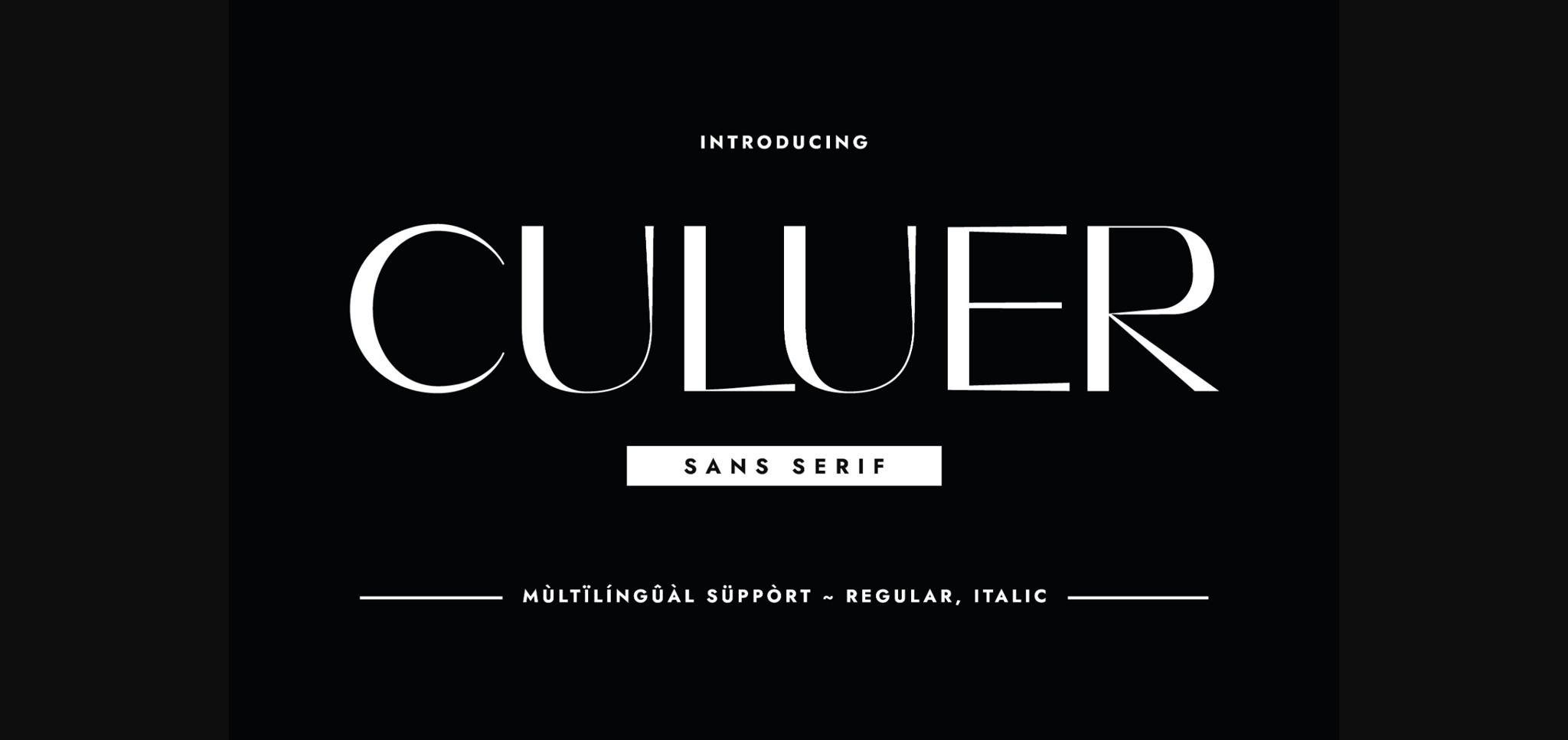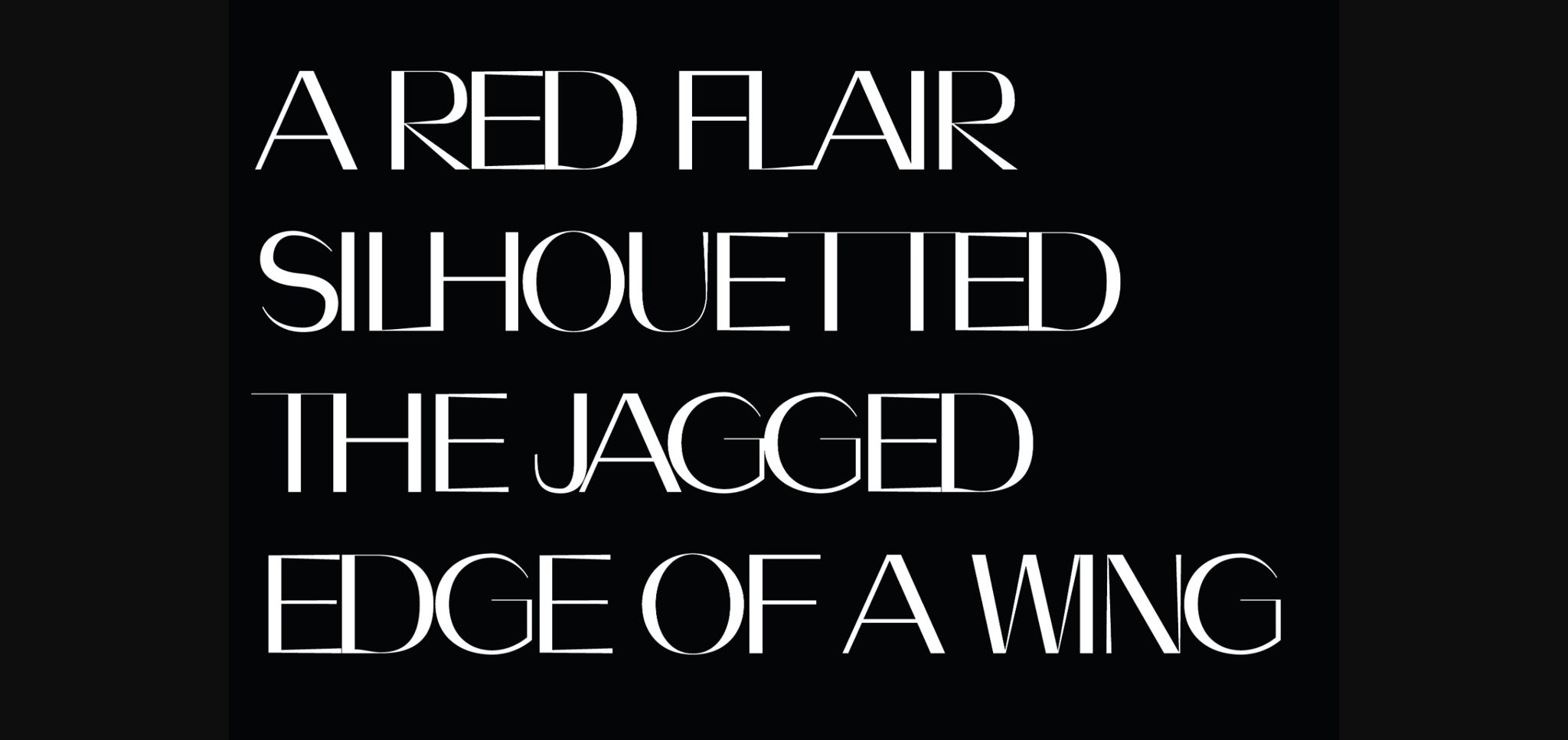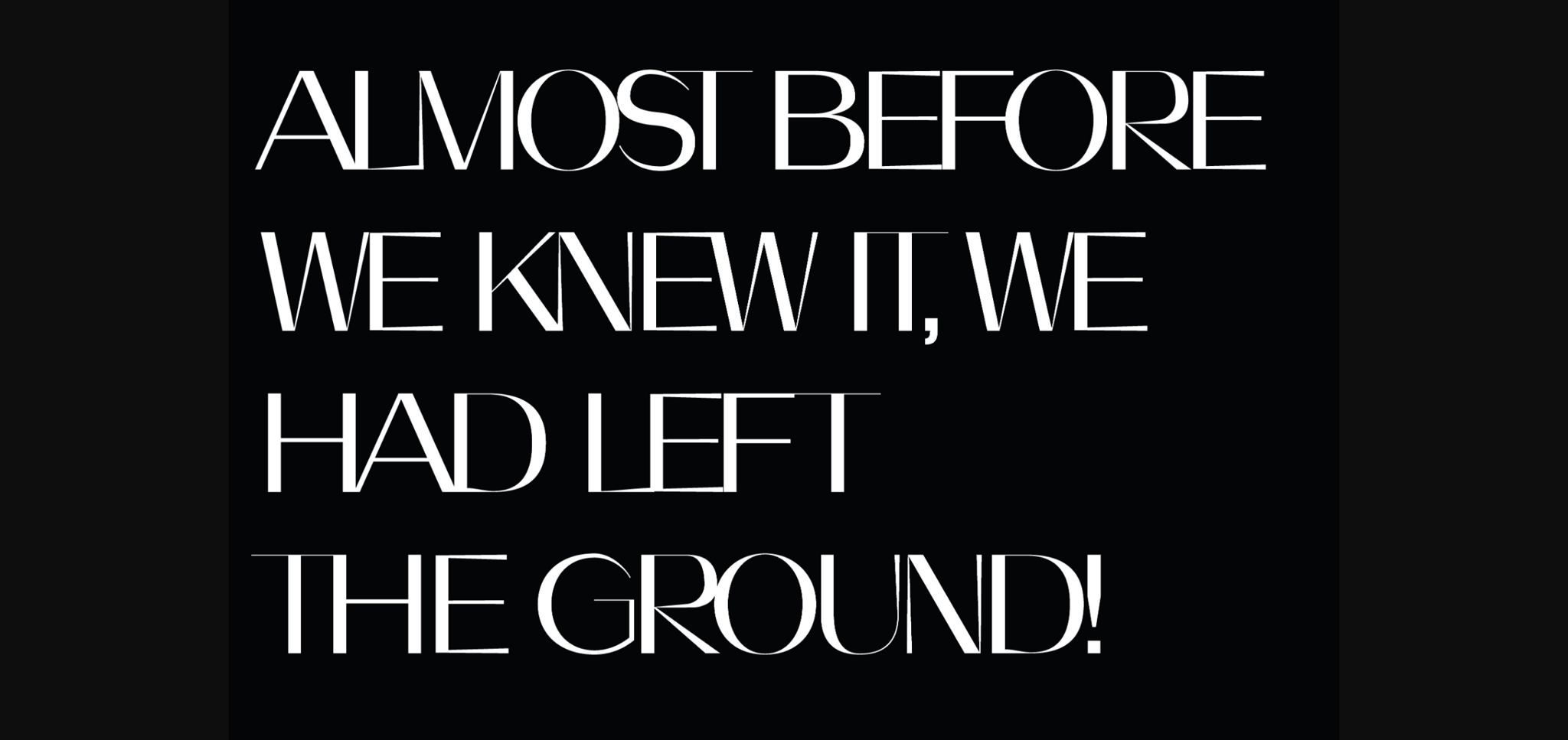
About Culuer Font
Culuer is a delicate, trendy, stylish, and classy sans serif typeface. Its elegance and delicate glyph structure render it a valid choice when you are designing projects that require those specs such as packaging design, branding, logo design, book covers, magazines, etc.